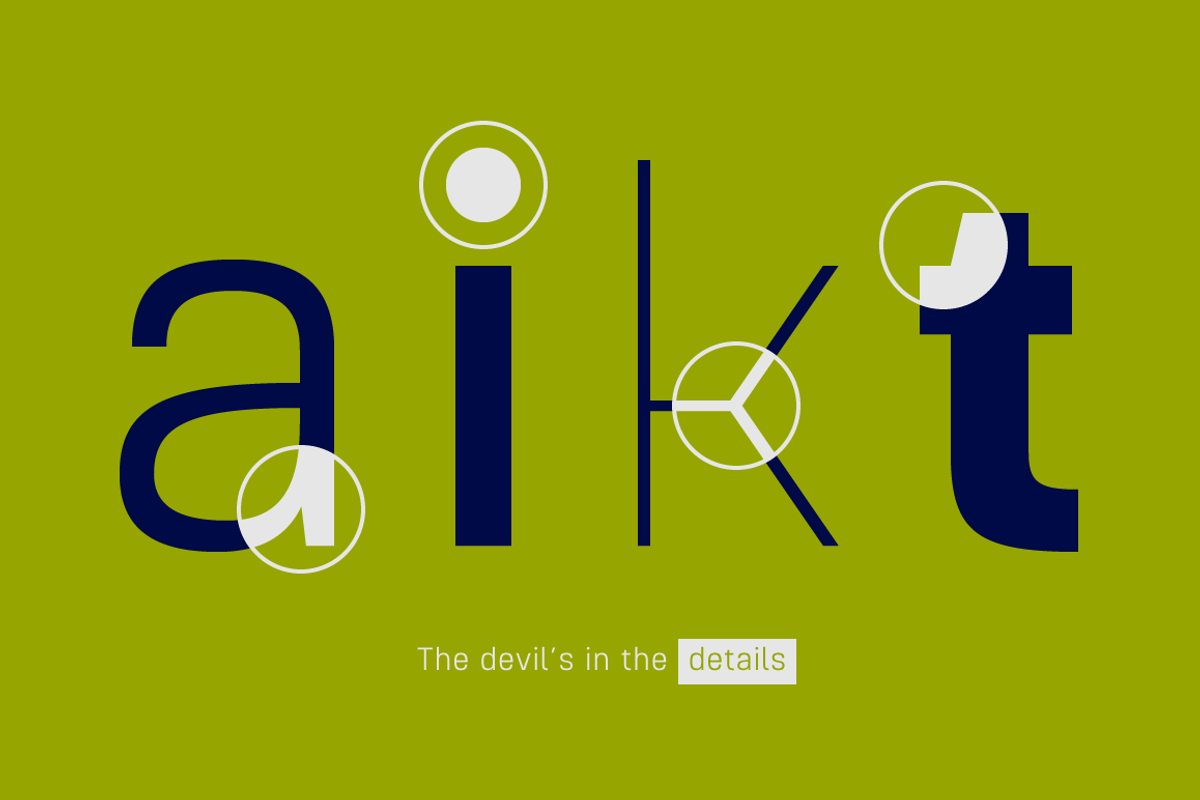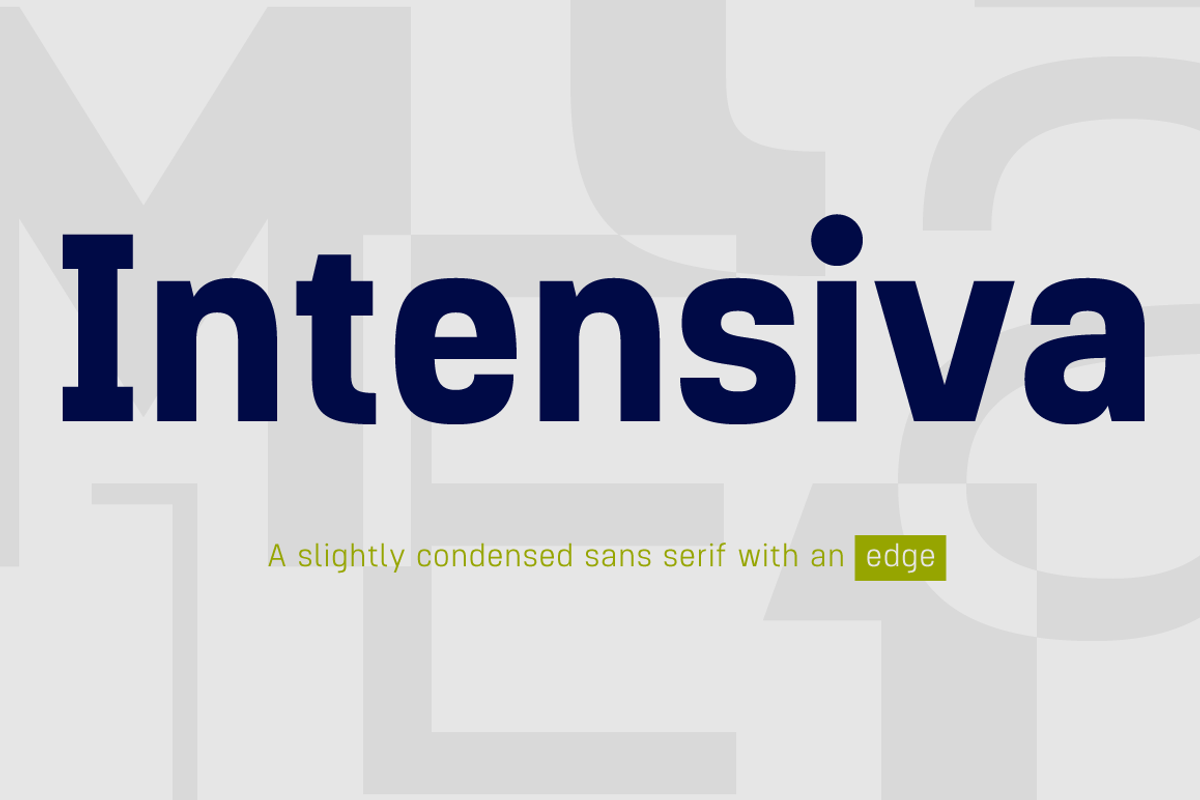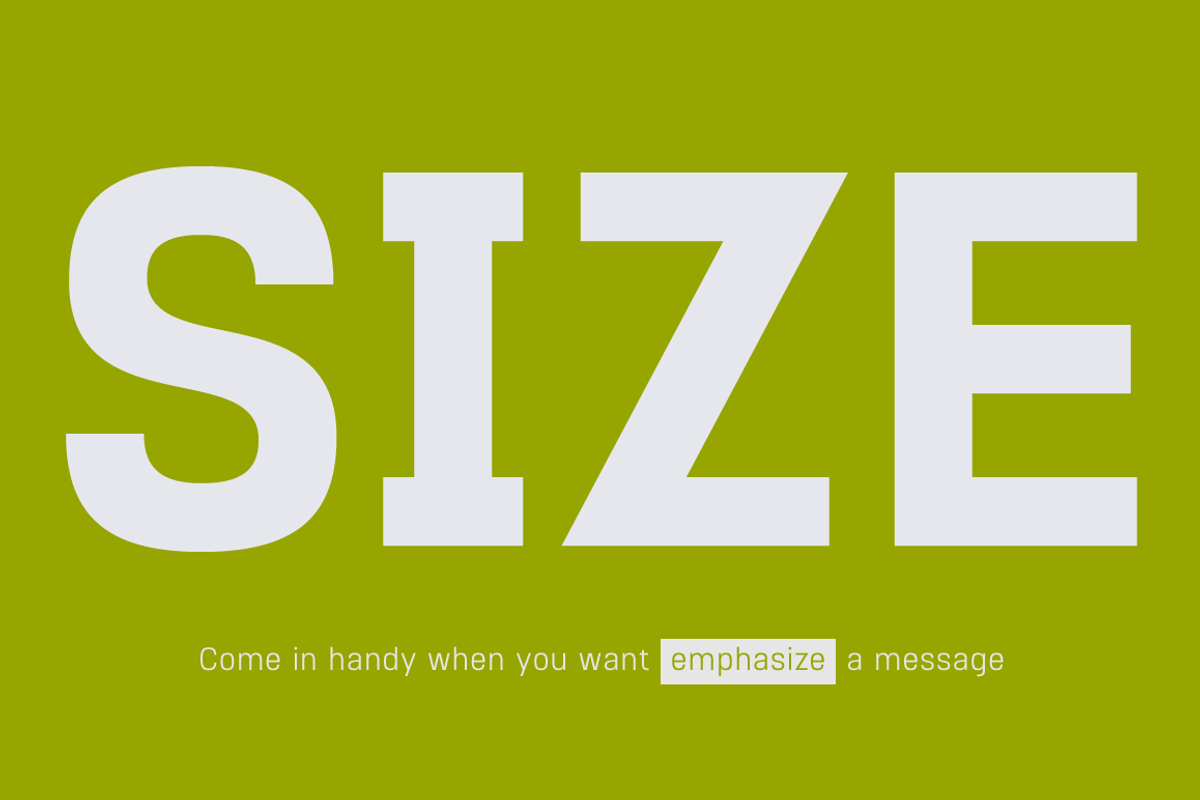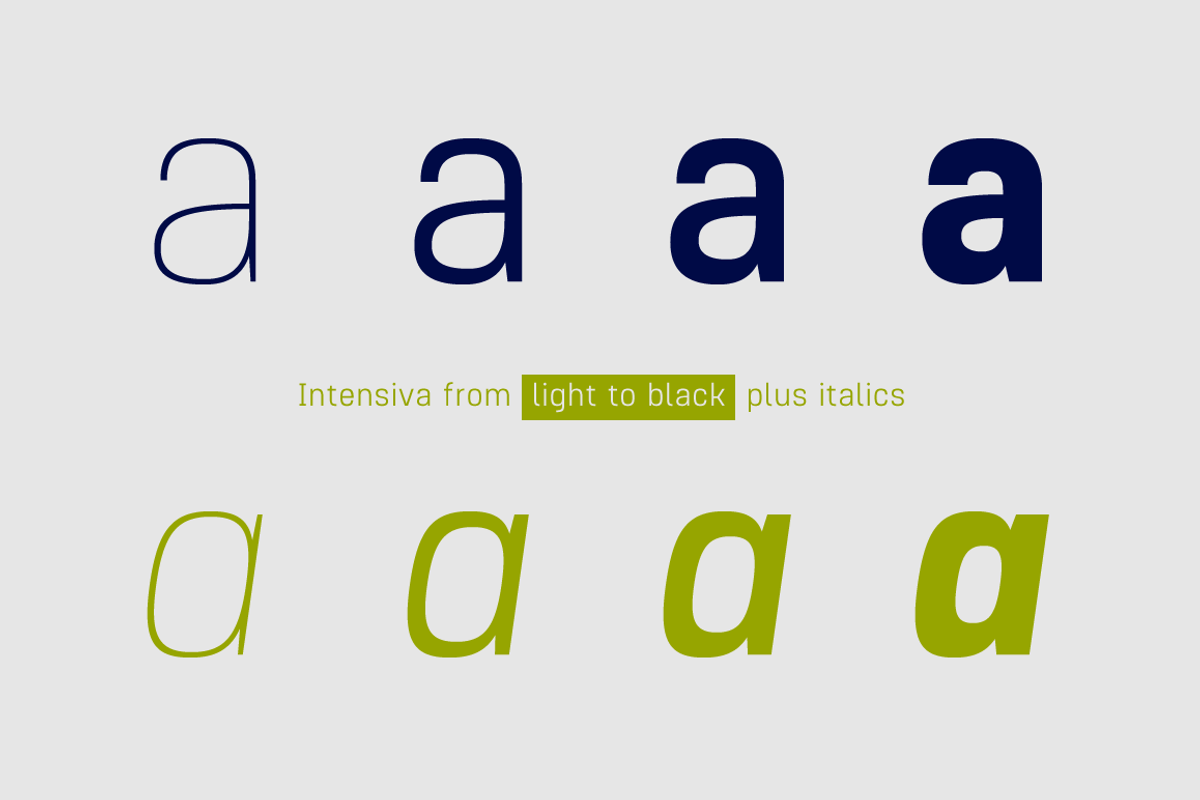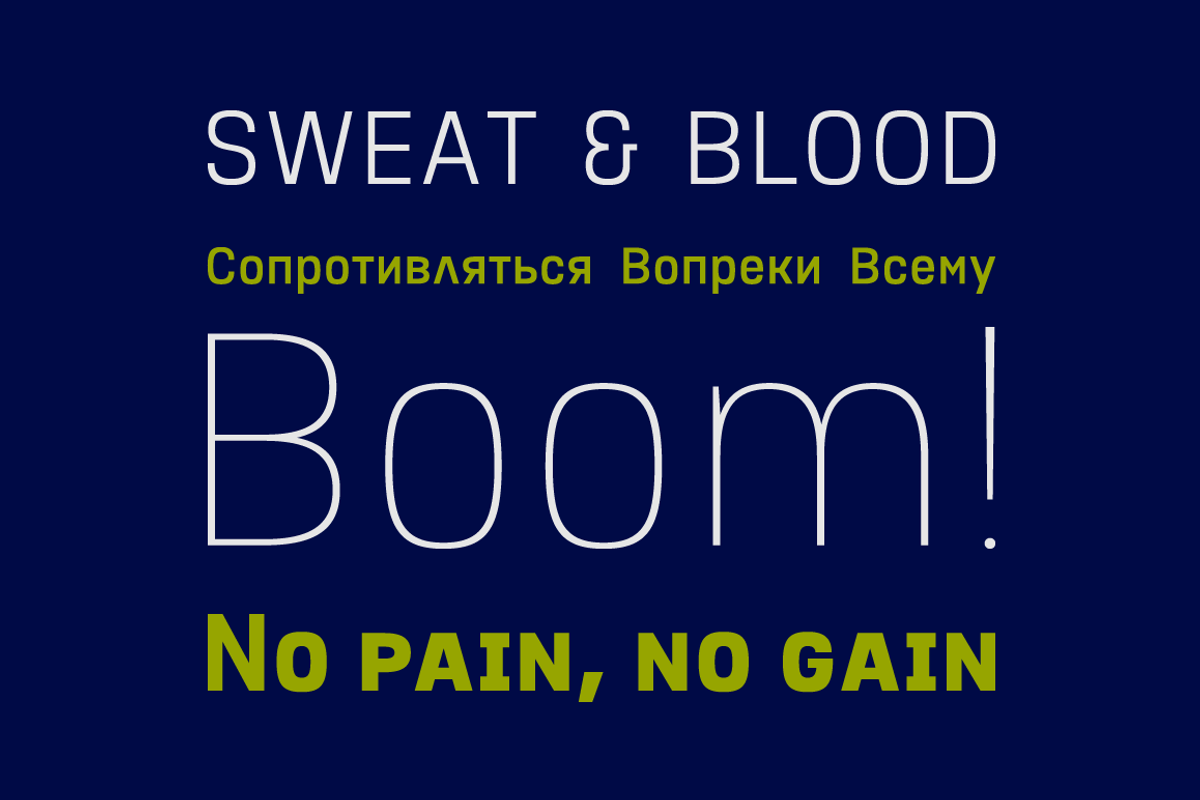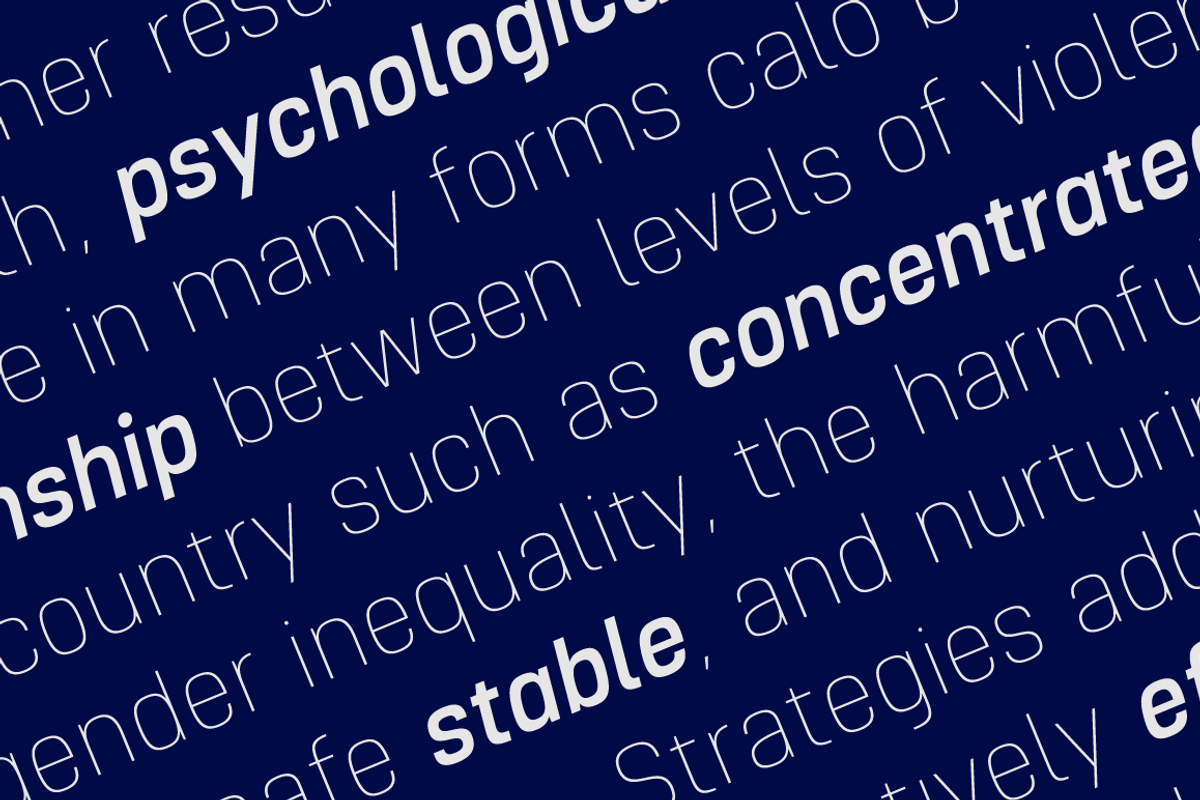
Intensiva Font Family
Designer: Pablo Balcells
Design date: 2019
Intensiva font family has been designed for Graviton Font Foundry by Pablo Balcells in 2019. It is a slightly condensed, humanistic sans serif typeface with angular details and shortened endings that provide an unorthodox appearance. Despite of this particular features, it is suitable for any kind of project, text length, size and, due to it subtle condensation, it is particularly effective for space economizing.
Intensiva consists of 8 styles, each containing small caps and glyph coverage for several languages.